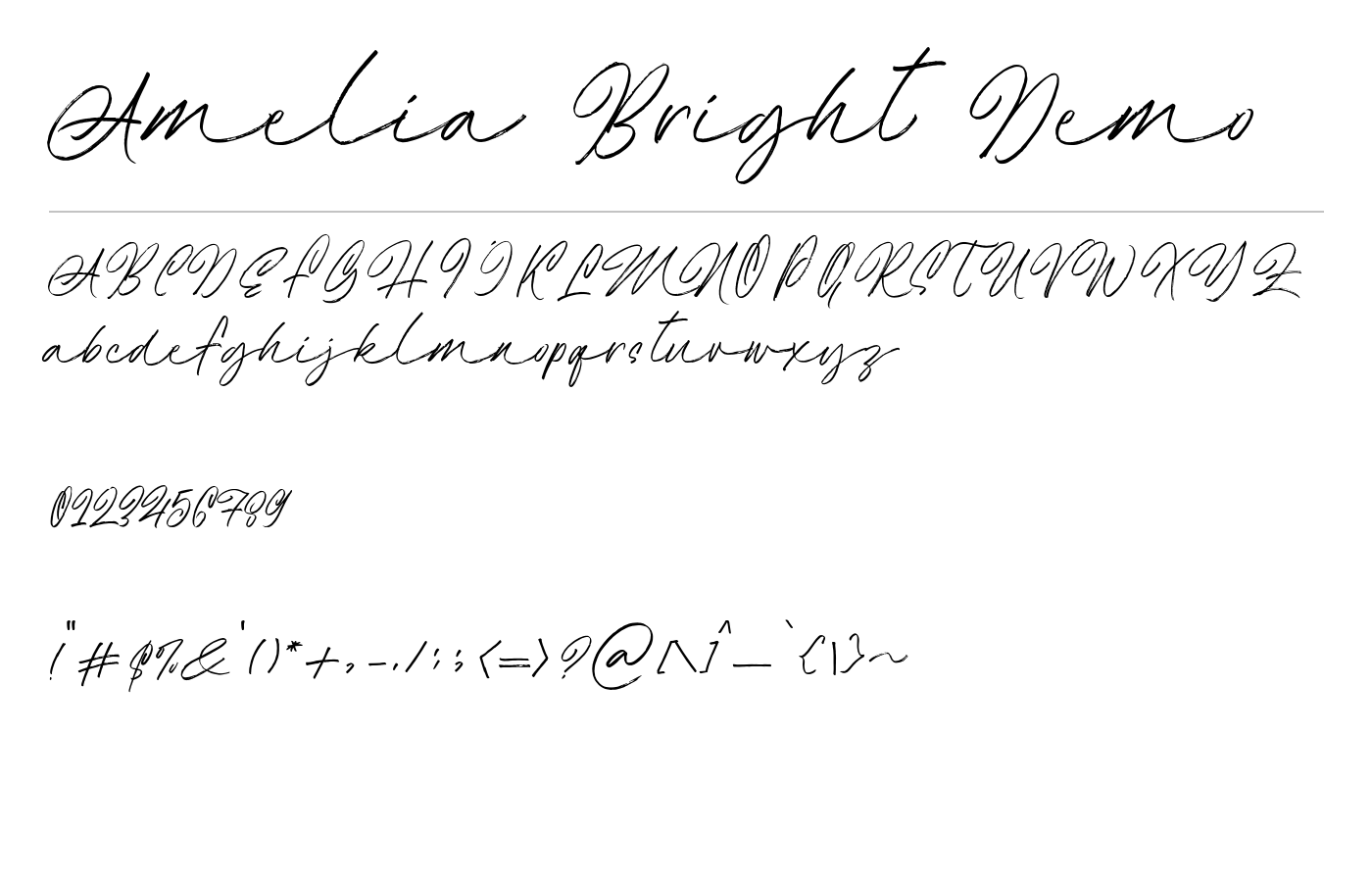
Amelia Bright Demo is an elegant, handwritten script font with a delicate and airy style. Its fine, flowing strokes and high-contrast lines lend a sophisticated and personal touch, making it ideal for invitations, branding, and editorial projects that seek a graceful and intimate feel. This font works best in designs that require a stylish yet approachable handwritten flair.
Amelia Bright Demo Font
About Amelia Bright Demo Font